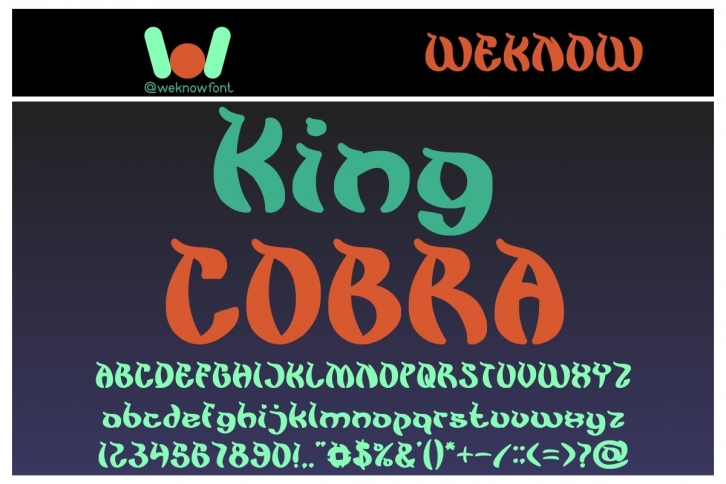
King Cobra is a fancy and bold slab serif font perfect for daring projects that need impressive typography! It will surely elevate the look of storybook covers, magazines, cartoons, comic books, social media posts, or any other creation!